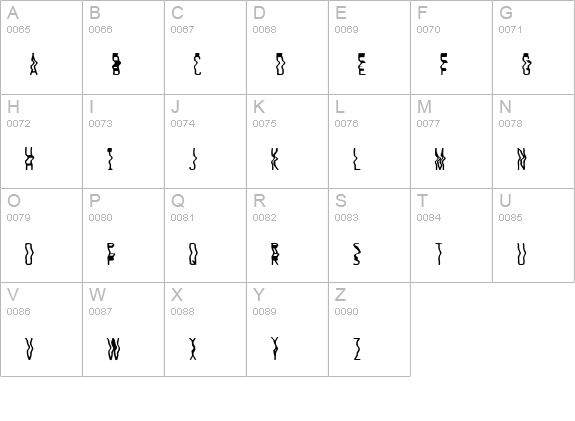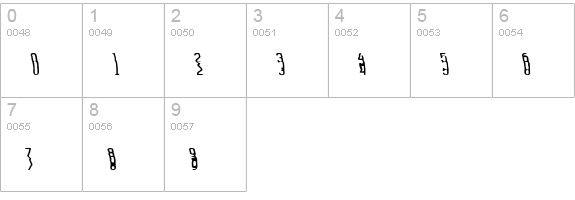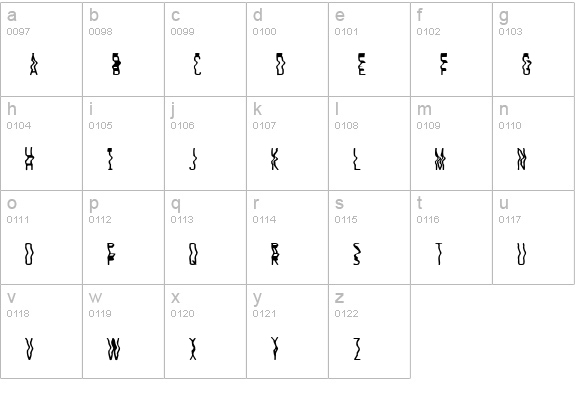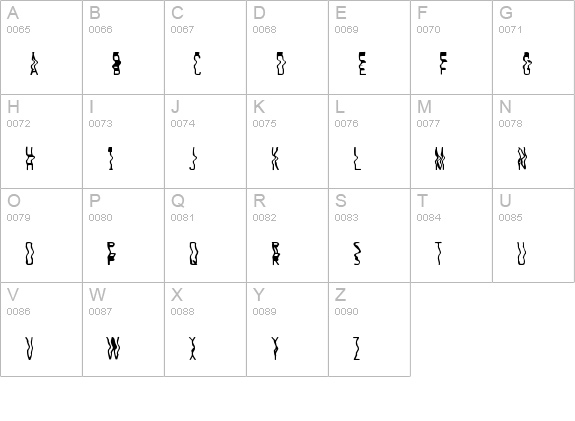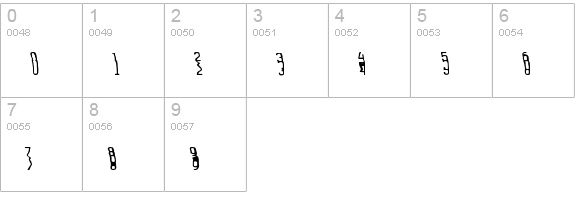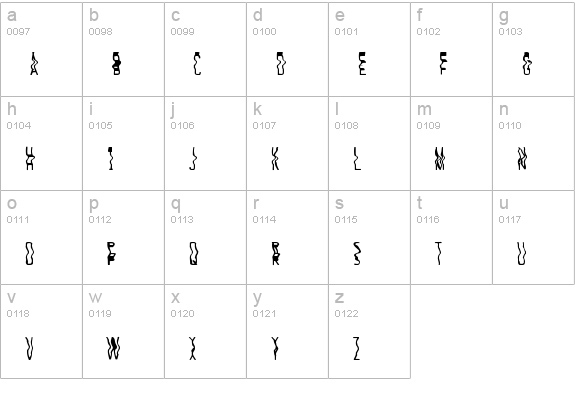
accient Font Details
The ancient font is a captivating typeface that exudes a sense of history and elegance. Its intricate details and ornate design harken back to a bygone era, adding a touch of sophistication to any project. This font is perfect for creating vintage-inspired designs, historical documents, or adding a unique flair to your creative work. Best of all, this ancient font is completely free to download at FontsMarket.com. Now you can easily access this stunning font and incorporate its timeless charm into your projects without any cost. Don't miss out on the opportunity to enhance your designs with this exquisite ancient font, available for free at FontsMarket.com.